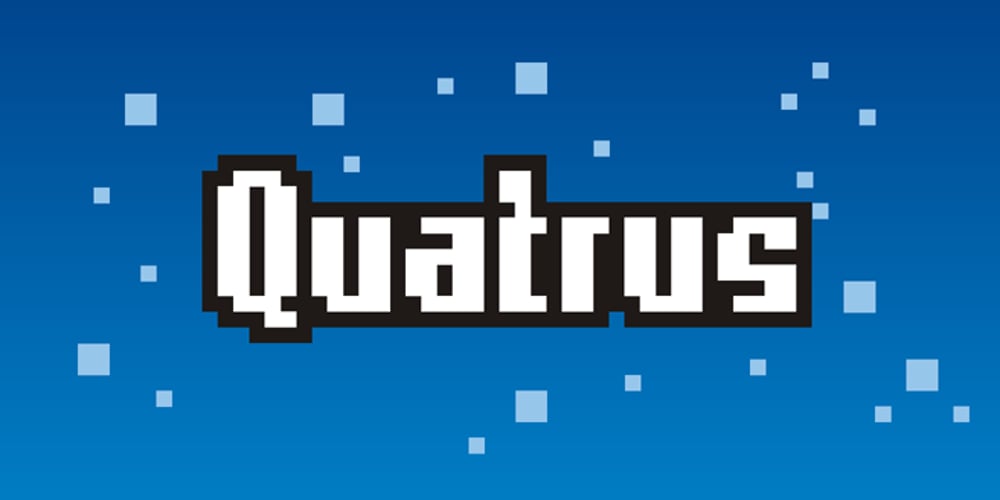
Quatrus Font Family was designed by Joey Stephen Maul and published by Joey Maul. Quatrus contains 2 styles and family package options. Quatrus is a simple geometric font which works nicely at larger display sizes, yet quite functional for text. The layout is based on a simple grid and complements any design based on square/rectangular shapes.